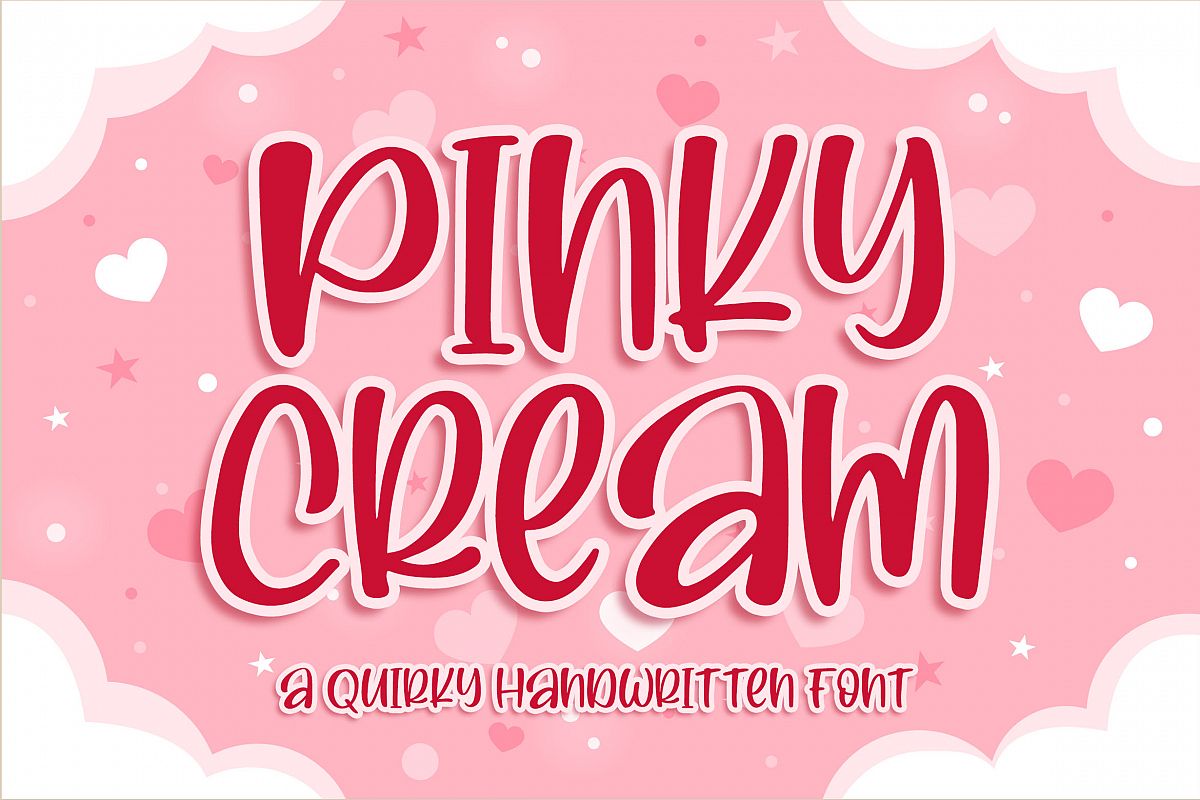
Introducing of our new product the name is Pinky Cream a Quirky Font. Pinky Cream inspired by modern calligraphy this font is a fun theme very good for food logo, food menu, wedding invitation, logotype and etc